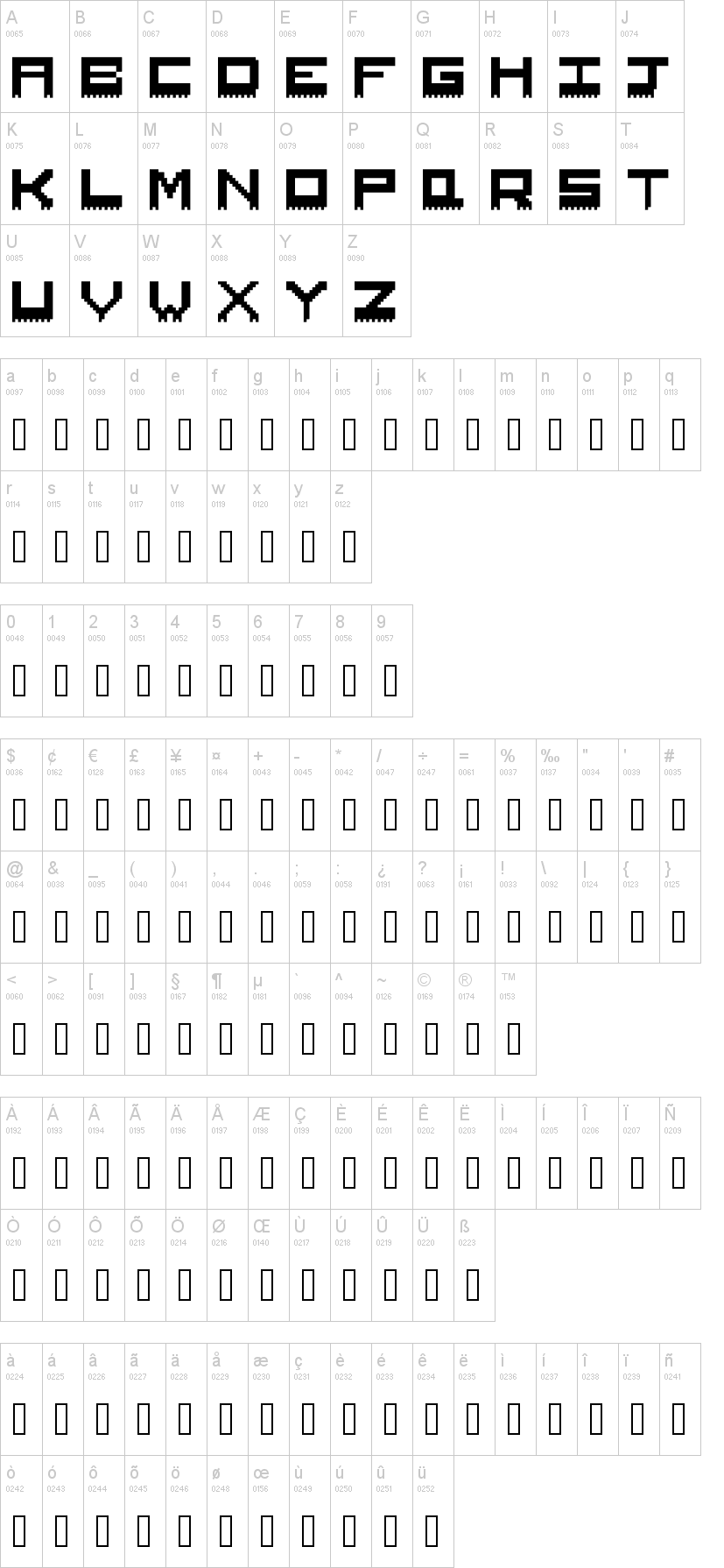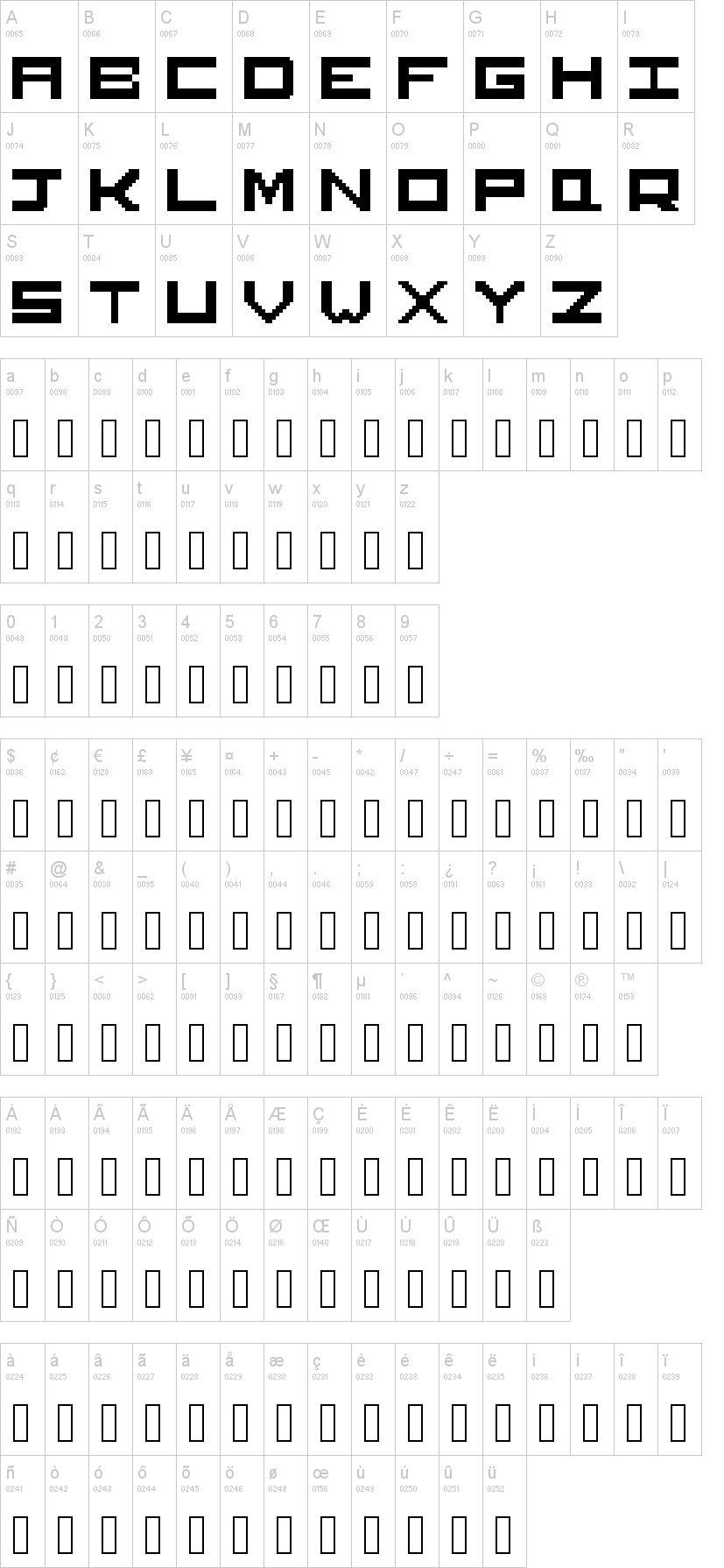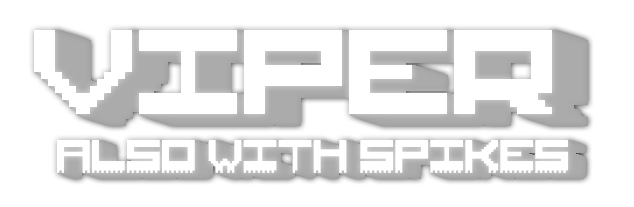
ViperSpikes.ttfNote of the authorDo you like Bitmap fonts that are easily readable (I'm looking at you Simon), and you can use in any project for free? Well here's your solution, a pixel font that looks a *bit* too much like Arial Bold!